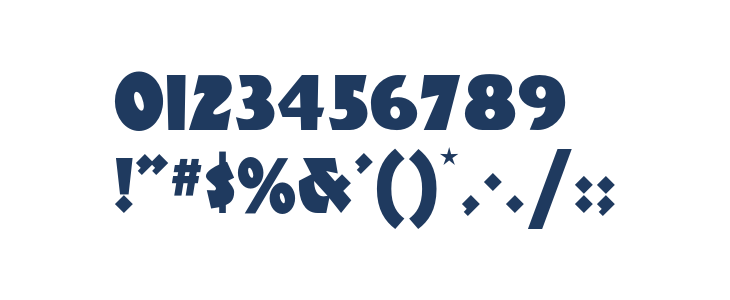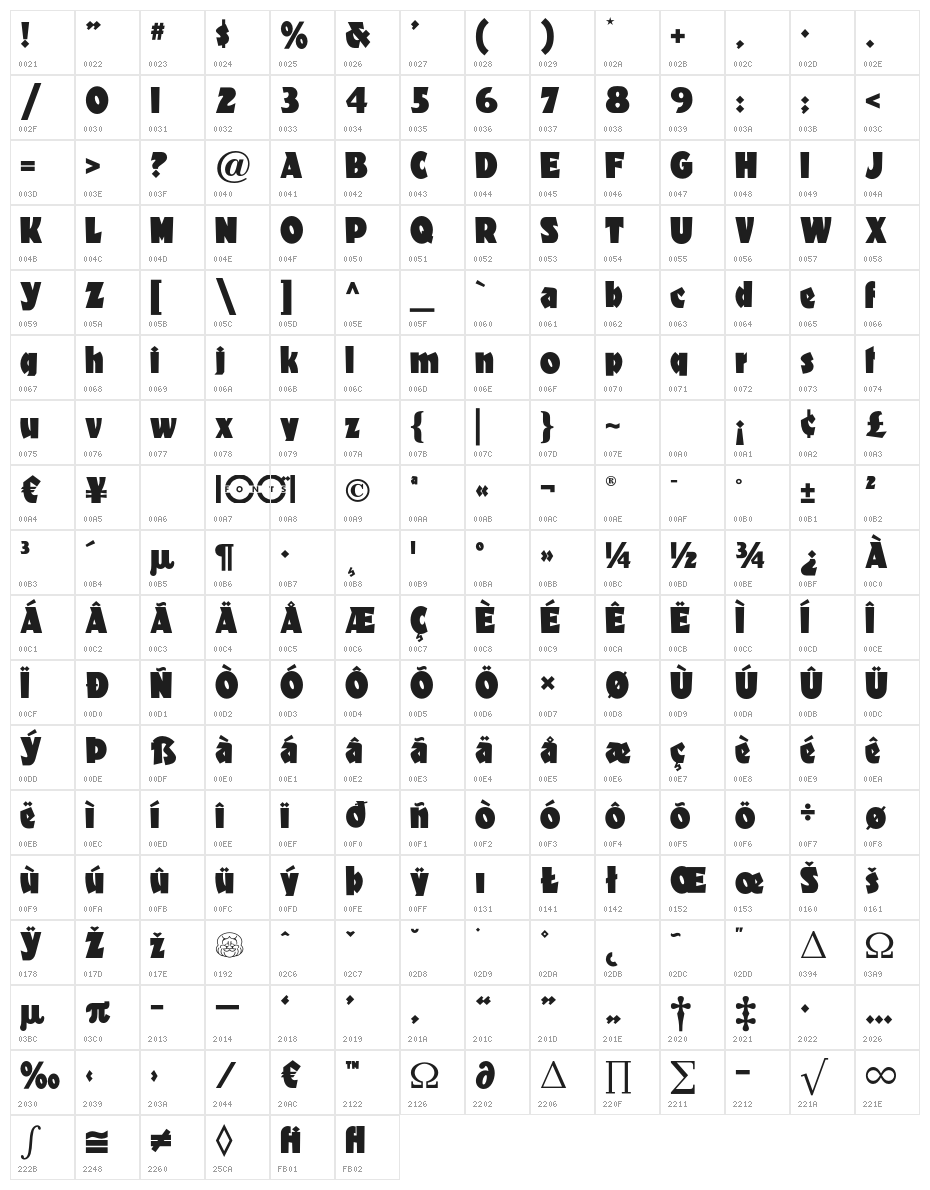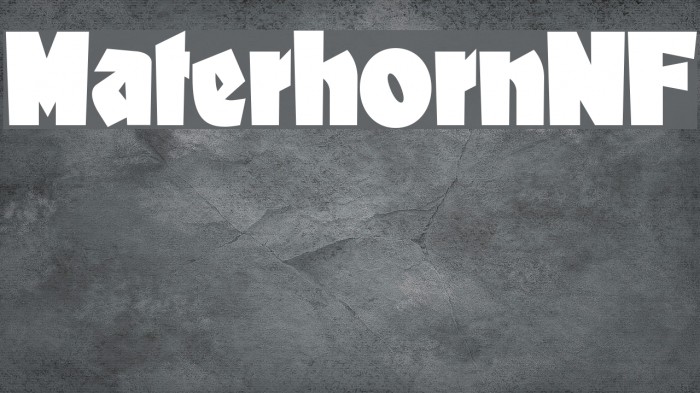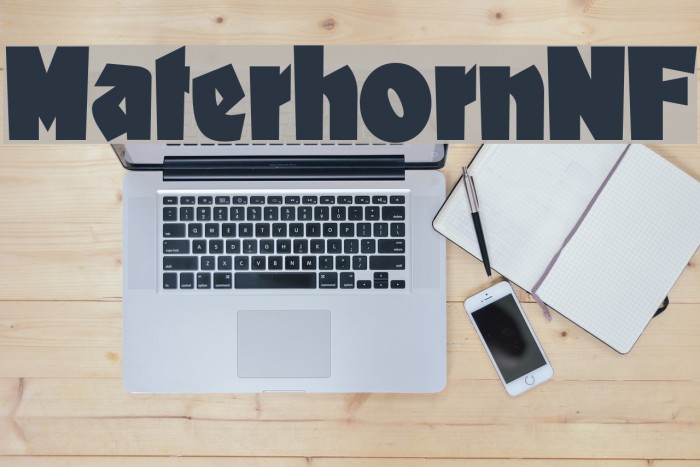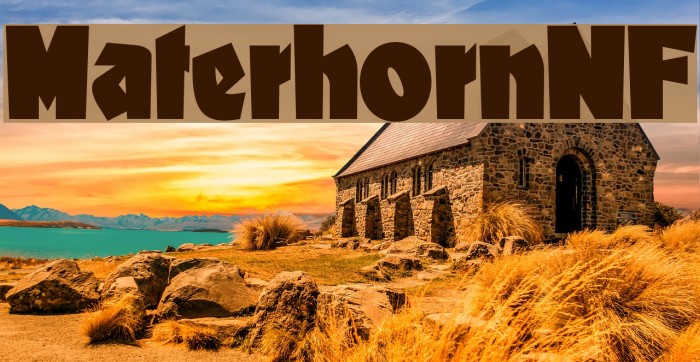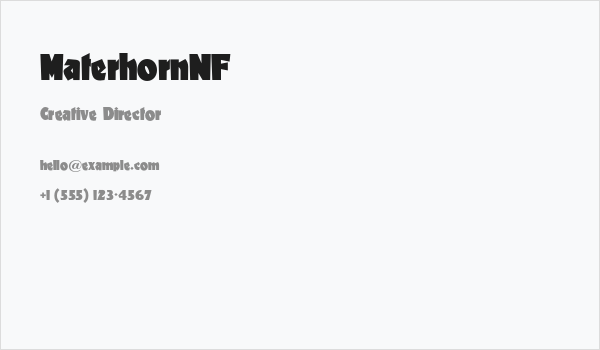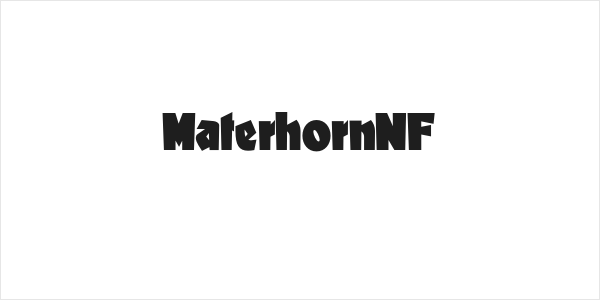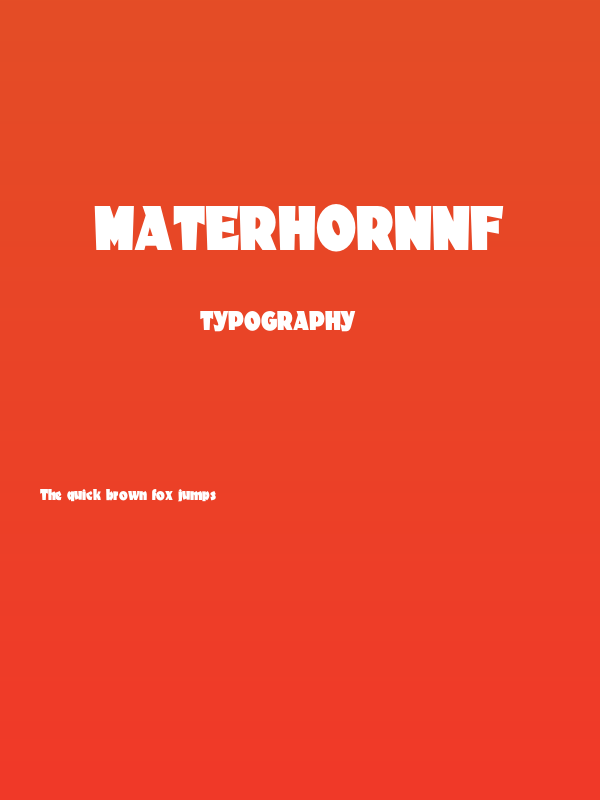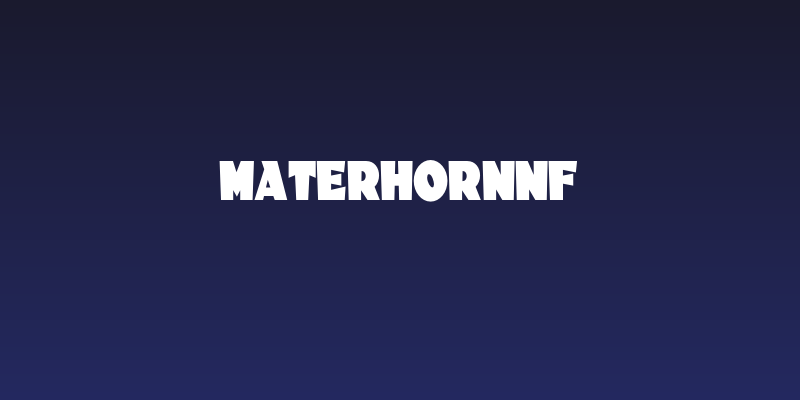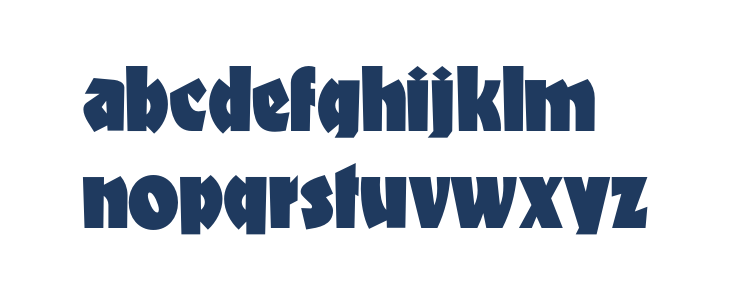
MaterhornNF Font
MaterhornNF Description
This font features bold, dramatic letterforms with a strong presence. The characters are thick and robust, with a slightly irregular shape that adds a playful and dynamic feel. The uppercase and lowercase letters maintain a consistent weight, creating a cohesive look across the alphabet. The numbers and special characters follow the same bold style, ensuring uniformity throughout. The font's unique style makes it stand out, with its exaggerated curves and angles giving it a distinctive, eye-catching appearance.